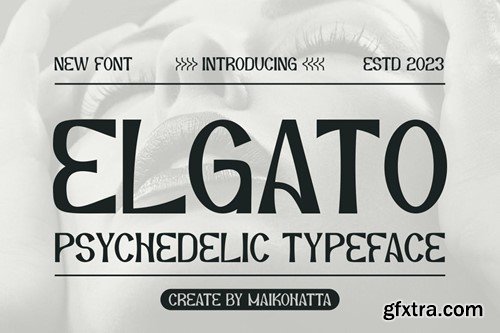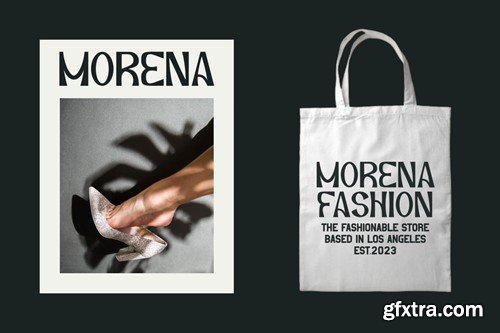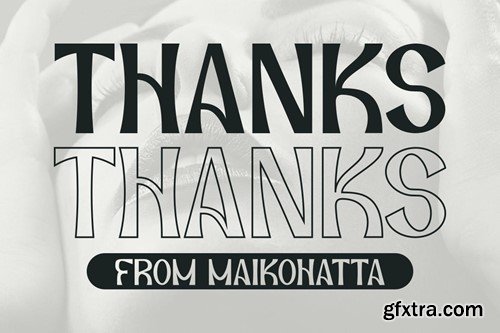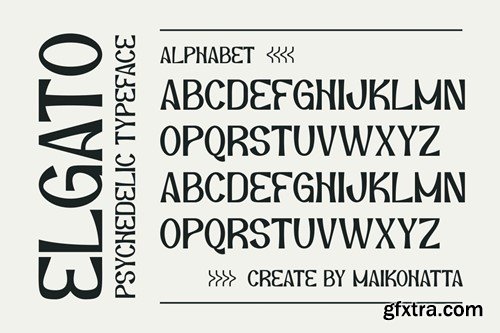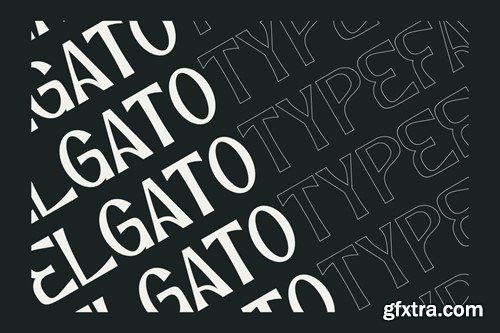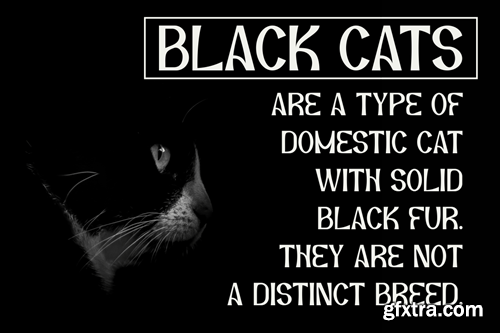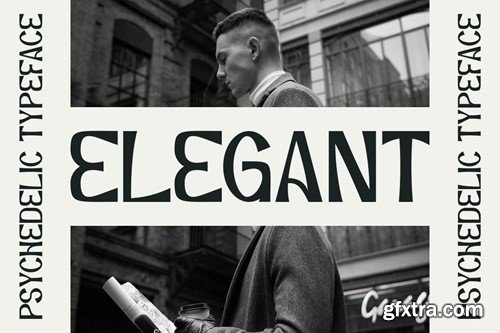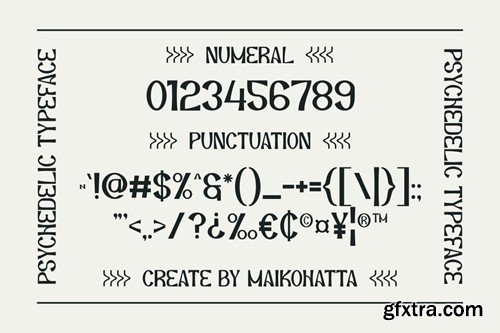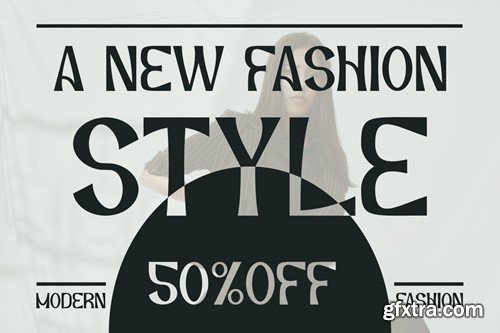
Elgato - Psychedelic Font
Introducing our new product Elgato - Psychedelic Font This font has energetic and abstract characteristics with a contemporary design perspective, offering a captivating visual experience, making it a valuable tool for designers who want to infuse their projects with a sense of adventure and creative experimentation. Psychedelic style is a creative and expressive typeface, often combining artistic elements, colors, and eye-catching designs. This font is commonly used in graphic designs, posters, art, and promotional materials that want to create a striking, experimental, or unique visual appearance. availlable